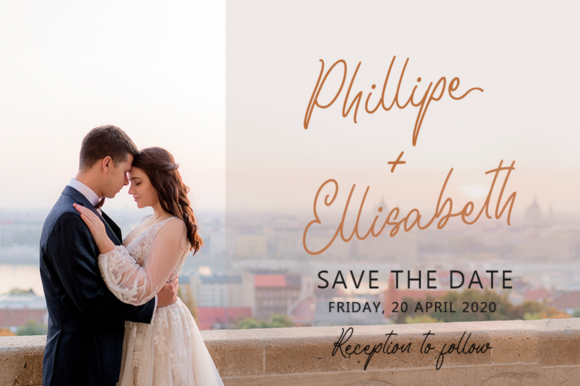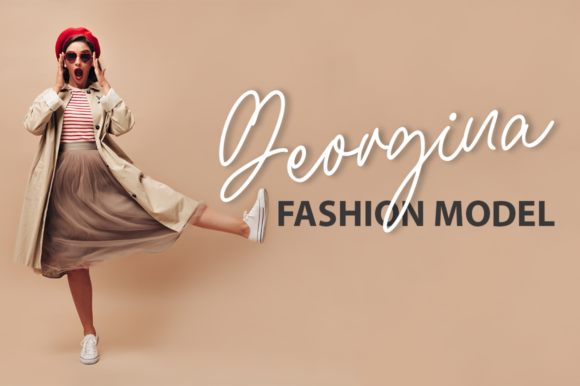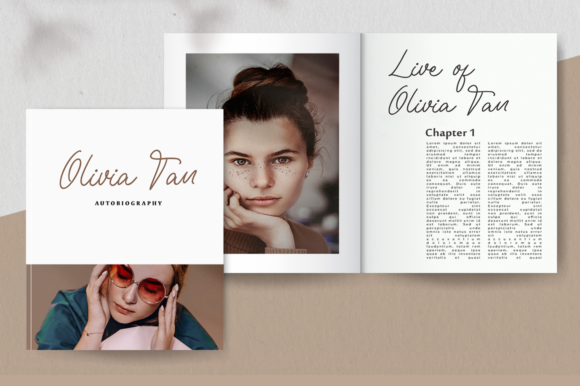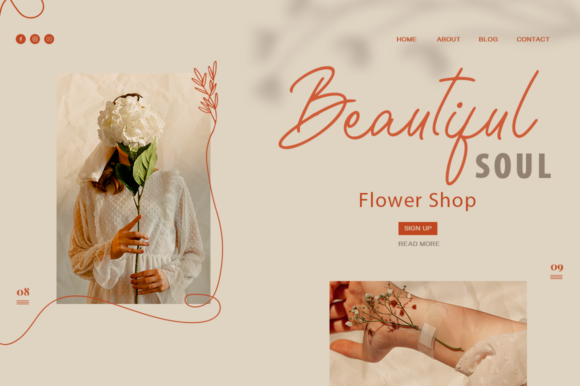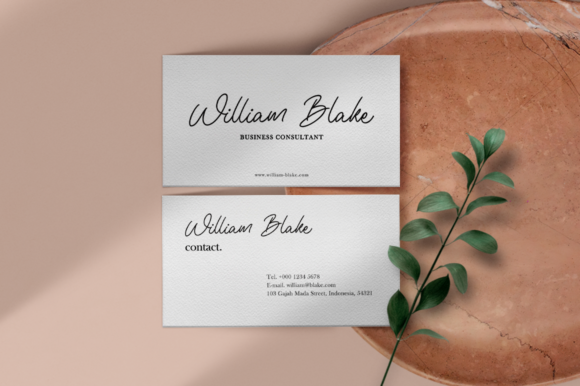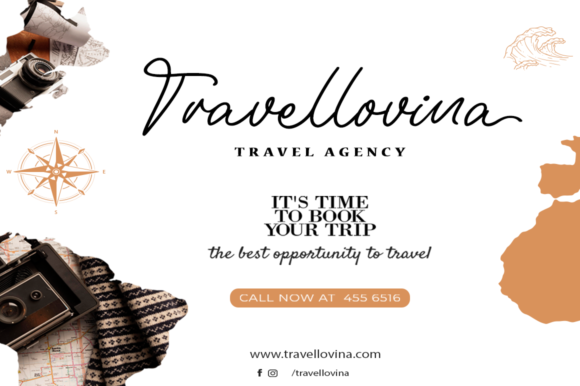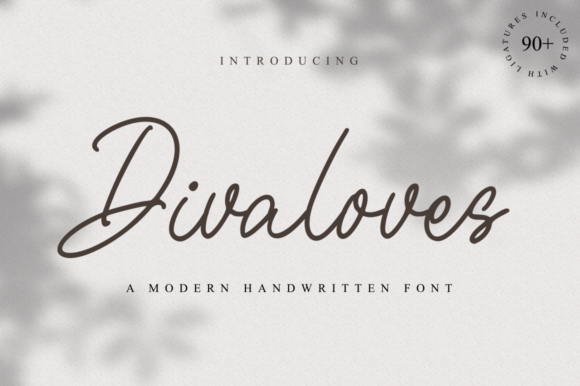
Divaloves Font: Elevate Your Designs with Elegance and Sophistication
In the world of typography, fonts play a crucial role in conveying the tone and personality of a design. For designers and crafters seeking to add a touch of romance and elegance to their projects, Divaloves Font is an exceptional choice. This beautiful, cursive handwritten font is designed to make your designs stand out with its graceful and sophisticated charm.
A Graceful and Cursive Handwritten Font
Divaloves Font is a stunning example of a cursive handwritten font that exudes elegance and refinement. Its flowing lines and curves create a sense of movement and fluidity, making it perfect for designs that require a personal and human touch. The font’s cursive nature allows it to add a touch of sophistication and luxury to any project, whether it’s a wedding invitation, a branding campaign, or a digital product.
Beautifully Balanced Characters
One of the standout features of Divaloves Font is its beautifully balanced characters. Each letter is carefully crafted to ensure that the font looks harmonious and visually appealing. The characters are well-proportioned, with a perfect balance of thick and thin lines, making the font easy to read and understand. This balance also allows the font to be versatile, making it suitable for a wide range of design applications.
Perfect for Romantic Designs
Divaloves Font is particularly well-suited for romantic designs, such as wedding invitations, Valentine’s Day cards, and other projects that require a touch of love and elegance. The font’s cursive nature and beautiful characters evoke feelings of warmth and intimacy, making it perfect for designs that aim to capture the heart. Whether you’re a designer or a crafter, Divaloves Font is an excellent choice for creating romantic and memorable designs.
Another significant advantage of Divaloves Font is that it’s PUA (Private Use Area) encoded. This means that you can access all the glyphs and swashes with ease, giving you greater flexibility and creative control over your designs. PUA encoding allows you to unlock the full potential of the font, making it easier to create unique and personalized designs that stand out from the crowd.
For those who may not be familiar with PUA encoding, it’s a method of encoding that allows font creators to include additional characters and glyphs in a font. These characters can include swashes, ligatures, and other ornaments that can enhance the visual appeal of a design. PUA encoding ensures that these characters are easily accessible, making it simpler for designers to create beautiful and intricate designs.
Why Choose Divaloves Font?
- Elegance and Sophistication: Divaloves Font adds a touch of elegance and sophistication to any design, making it perfect for projects that require a high level of refinement.
- Versatility: The font’s beautiful characters and balanced design make it suitable for a wide range of design applications, from romantic designs to branding campaigns.
- Easy to Use: Divaloves Font is PUA encoded, making it easy to access all the glyphs and swashes.
- Unique and Personalized Designs: With Divaloves Font, you can create unique and personalized designs that stand out from the crowd.
In conclusion, Divaloves Font is an exceptional choice for designers and crafters seeking to add a touch of elegance and sophistication to their projects. Its beautiful, cursive handwritten design, balanced characters, and PUA encoding make it perfect for a wide range of design applications. Whether you’re creating romantic designs, branding campaigns, or digital products, Divaloves Font is sure to elevate your designs to the next level.